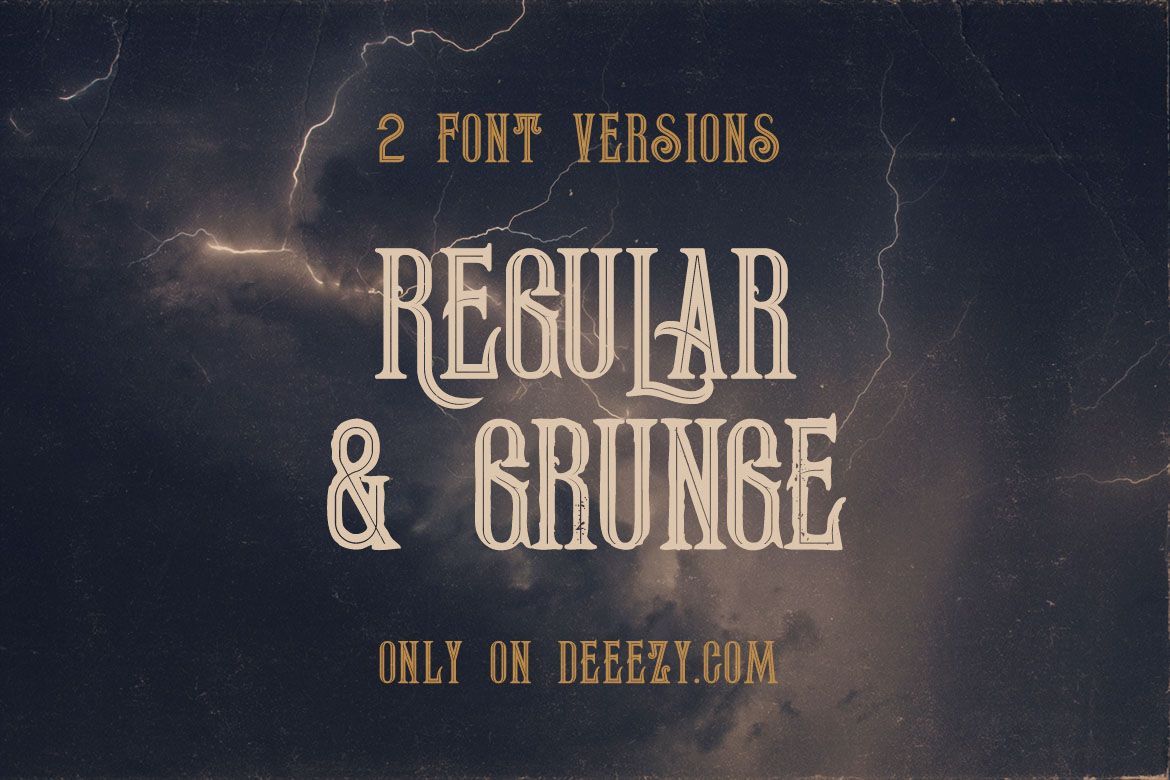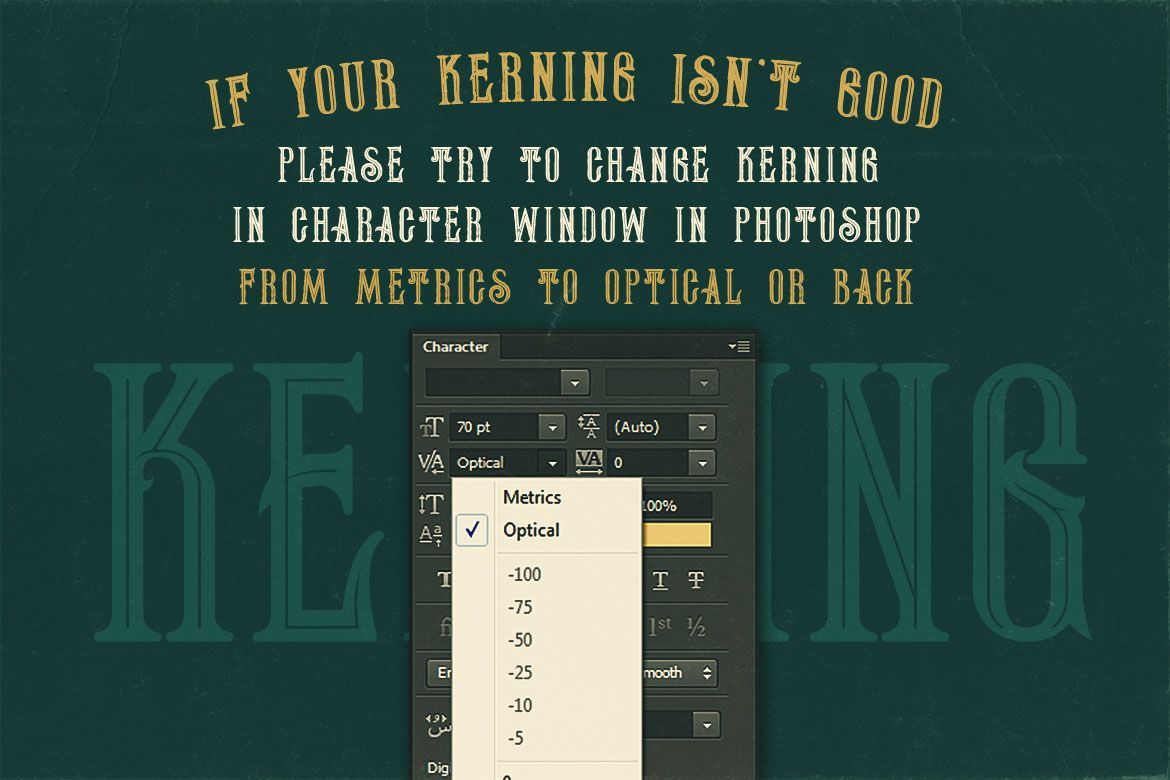
Thunder Bold Inline - Free Font Deeezy
Vintage style display or serif font for your new projects. Great for your modern/retro headers or identity!
• english characters, numbers & special characters